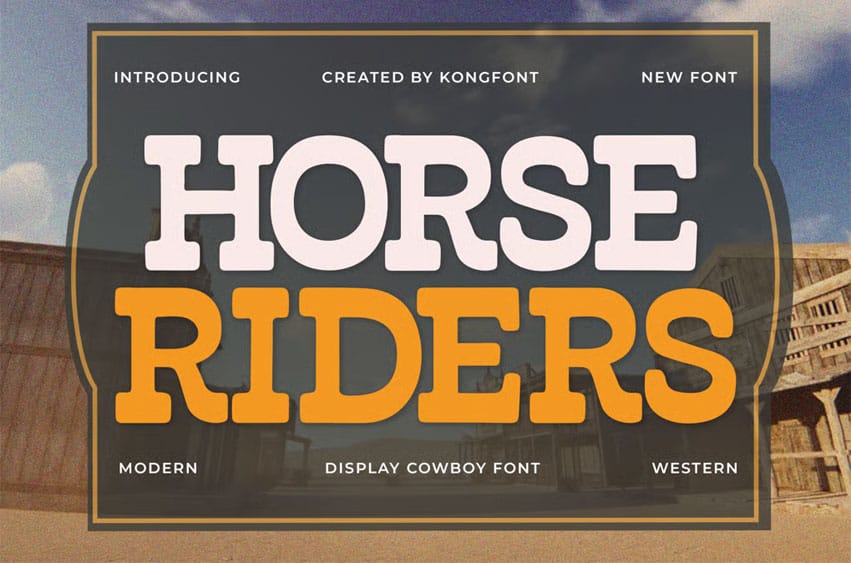
Horse Riders Font is a cowboy typeface designed to bring rugged Western charm and cutting-edge energy to your designs. With its sturdy, slab-like shapes, rustic curves, and vintage-inspired details, Horse Riders captures the spirit of the Wild West, perfect for projects that call for authentic cowboy character and visual impact.
Ideal for logos, posters, signage, rodeo event graphics, restaurant menus, clothing prints, vintage branding, labels, badges and themed designs, Horse Riders offers a striking Western personality that instantly transports your audience to dusty trails, open plains and classic cowboy culture.